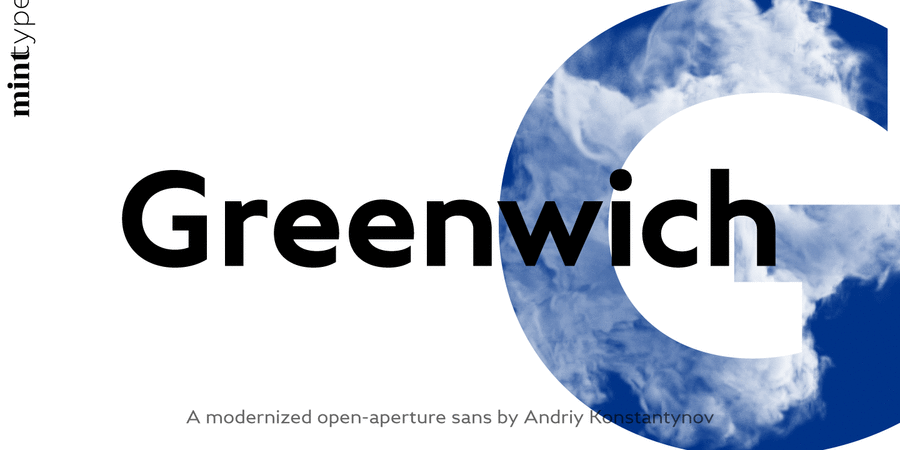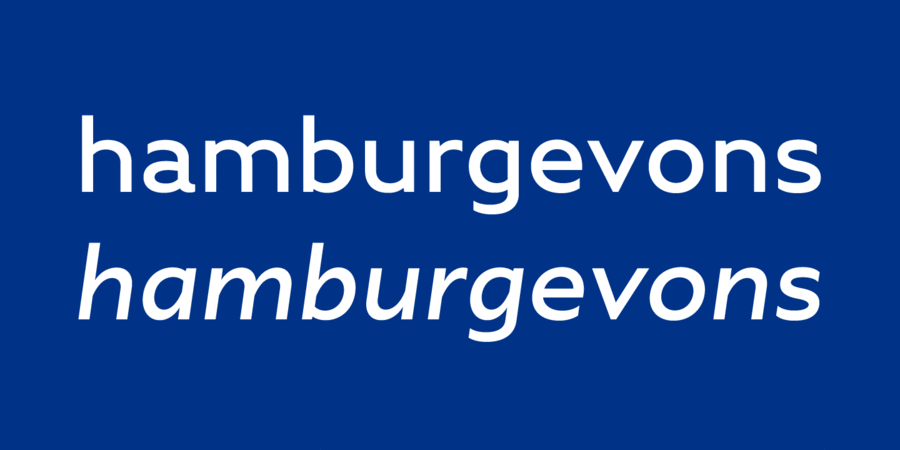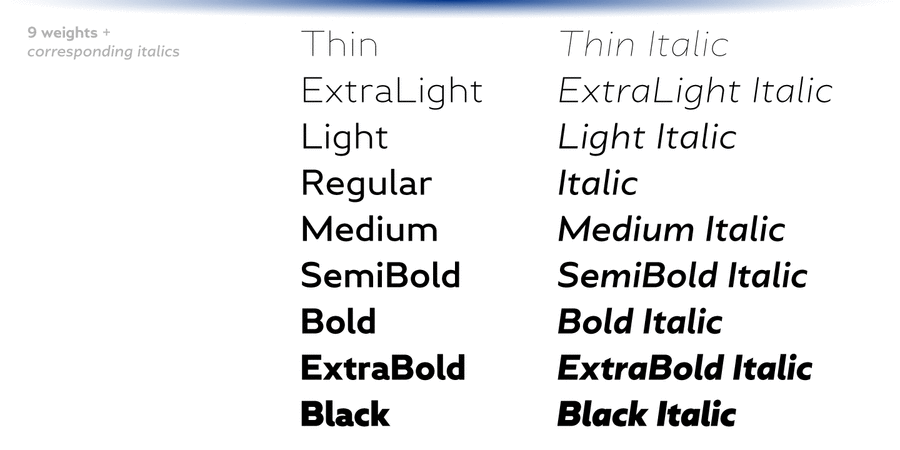
About Greenwich is a modern-looking humanized sans-serif typeface with open aperture, inspired by the works of English typographers in 1910s–1920s. It comes in 9 weights accompanied with matching mixed-style italics. Containing over 950 glyphs, Greenwich offers extensive language support including Cyrillic, multiple OpenType features and numerous alternate glyphs to choose from. It works great in long paragraph texts, but is expressive enough to be used in headlines and branding applications as well. The typeface was designed and released by Andriy Konstantynov in Mint Type foundry in 2019.
Hit of 1920s Hit of 2010s Greenwich supports 83 languagesUkrainian, English, German, Polish, Portuguese, Spanish, French, Russian, Czech, Dutch, Italian, Swedish, Turkish, Finnish, Belarusian, Serbian, Bulgarian, Estonian, Lithuanian, Albanian, Afrikaans, Basque, Breton, Valencian, Galician, Gaelic (Scottish), Danish, Indonesian, Irish, Icelandic (Win), Karakalpak, Catalan, Norwegian, Occitan, Rhaeto-Romance, Sami Lule, Tswansky, Uzbek (Lat.), Faroese, Frisian, Chamorro, Estonian (Win), South Sami, Albanian (Win), Hungarian, Upper leprechauny, Karelian, Latvian (Mac), Lithuanian (Mac), Maori (Mac), Moldovan (Lat.), Lower Sorbian, Romanian (Win), Slovak, Slovenian, Turkmen (Lat.), Croatian (Win), Estonian (Mac), Kurdish, Latvian, Maori, Romanian, Abazin, Avar, Agul, Adyghe, Darginsky, Ingush, Kabardino-Circassian, Kabardian, Karachay-Balkar, Kumyk, Lak, Lezghian, Macedonian, Mordovian-Moksha, Mordovian-Erzya, Nogai, Rutulian, Tabasaran, Tatar, Tsakhur, Chechen Functions of font family GreenwichTypeface use in layout:
minimalistic, delicate, clean, easy, chilly, fresh, fashionable, thin, modern, laconic, flat, high-quality, weightless, accurate, glass, sharp, transparent, intimate, fragile, wire, calm, clear, cutting, crisp, available, comfortable, simple, globalized, globalistic, urban, strict, clever, educated, serious, engineering, schematic, business, low key, solid, daring, motivating, convincing, splashy, heavy, strong, self-assured, stable, powerful, notable, bright, active, important, technogenic, close-fitting, severe, ambitious
Eau de Toilette, cosmetics, fashion, innovations, barbershop, diet, hygiene, purity, perfumery, lotion, shampoo, design, device, gadget, society, city, clothes, coworking, science, navigation, sky, water, transport, airport, Metro, medicines, footwear, engineer, equipment, chemistry, physics, logistics, tourism, bus, pharmacy, Delivery, news, policy, tool, energy industry, fuel, power station, technology, Freight, truck, trucker, building, mechanical engineering, factory, industry, machine tool, fitness equipment Typeface associated with age: